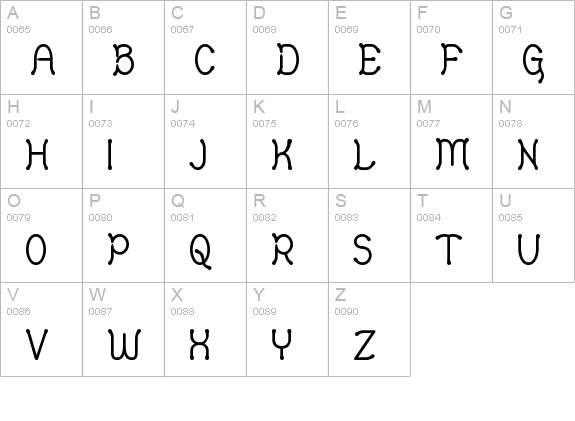
Yellow Swamp Font Details
Yellow Swamp font is a whimsical and playful typeface that captures the essence of a sunny and cheerful atmosphere. Its rounded edges and bold strokes give off a friendly and inviting vibe, making it perfect for designs that need a touch of warmth and joy. This font is available for free download at FontsMarket.com, where you can easily access it and incorporate it into your projects without any cost. With its unique character and versatility, Yellow Swamp font is sure to bring a burst of sunshine to your designs and make them stand out from the crowd. So go ahead and download this delightful font today to add a splash of color and happiness to your creative endeavors.